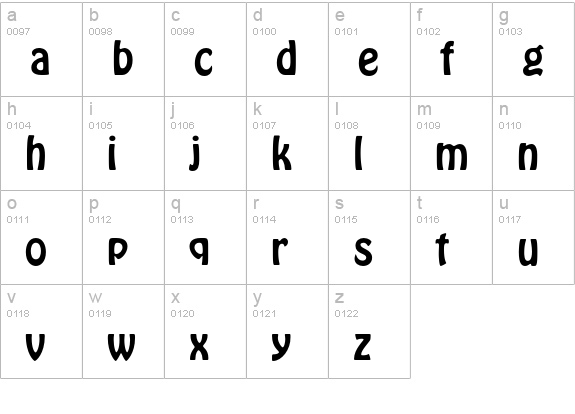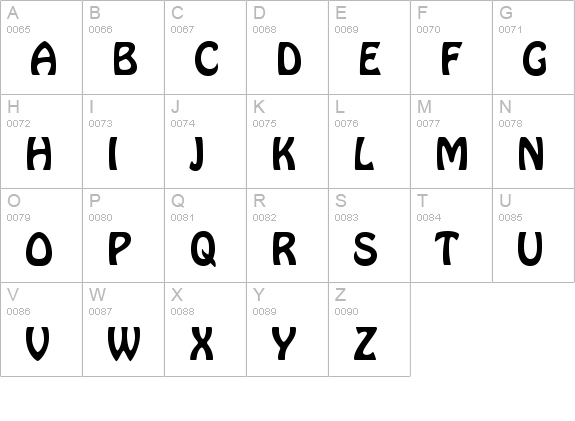
Hobo Std Medium is a balanced, medium-weight variant in the Hobo typeface family \xE2\x80\x94 well suited to sub-headlines, navigation, and balanced editorial work.
Hobo Std Medium is a versatile and eye-catching font that exudes a unique charm and character. Its bold and rounded letterforms make a strong visual impact, making it ideal for headlines, posters, and branding projects. The medium weight strikes the perfect balance between readability and personality, making it suitable for a wide range of design applications. What makes Hobo Std Medium even more appealing is that it is available for free download at FontsMarket.com. This means that you can easily access this stylish font and use it in your projects without any cost. Whether you're a designer looking to add a touch of creativity to your work or a hobbyist exploring new typography options, Hobo Std Medium is a fantastic choice that won't break the bank. Download it today and elevate your designs with this captivating font.